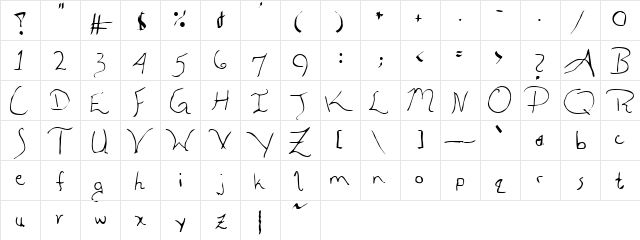
Aleia Abnormal
Design Context for Aleia Typeface
Aleia is a composed and adaptable typeface that performs quietly and consistently across a wide range of design contexts.